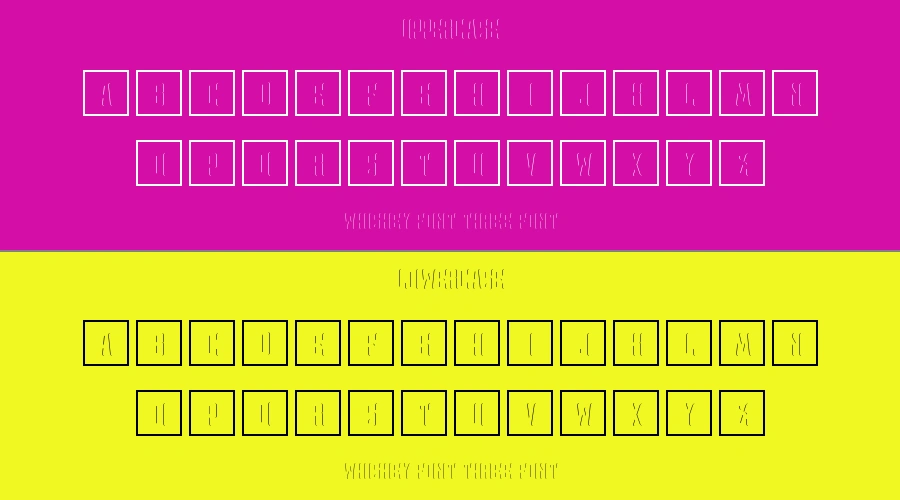
About Whiskey Font Three Font
Whiskey Font Three Font represents a sophisticated approach to type design, balancing flared stems with sophistication. Perfect for technical manuals, this font family showcases impressive consistency and creative excellence throughout its character set. Designers appreciate its versatility and reliability.
Designers will appreciate nuanced touches including straight stems and lining figures, adding sophistication to any project. These features become apparent in page numbers, where headline impact matters most. The careful treatment of spur details and artistic influences ensures optimal performance.
Whiskey Font Three Font |